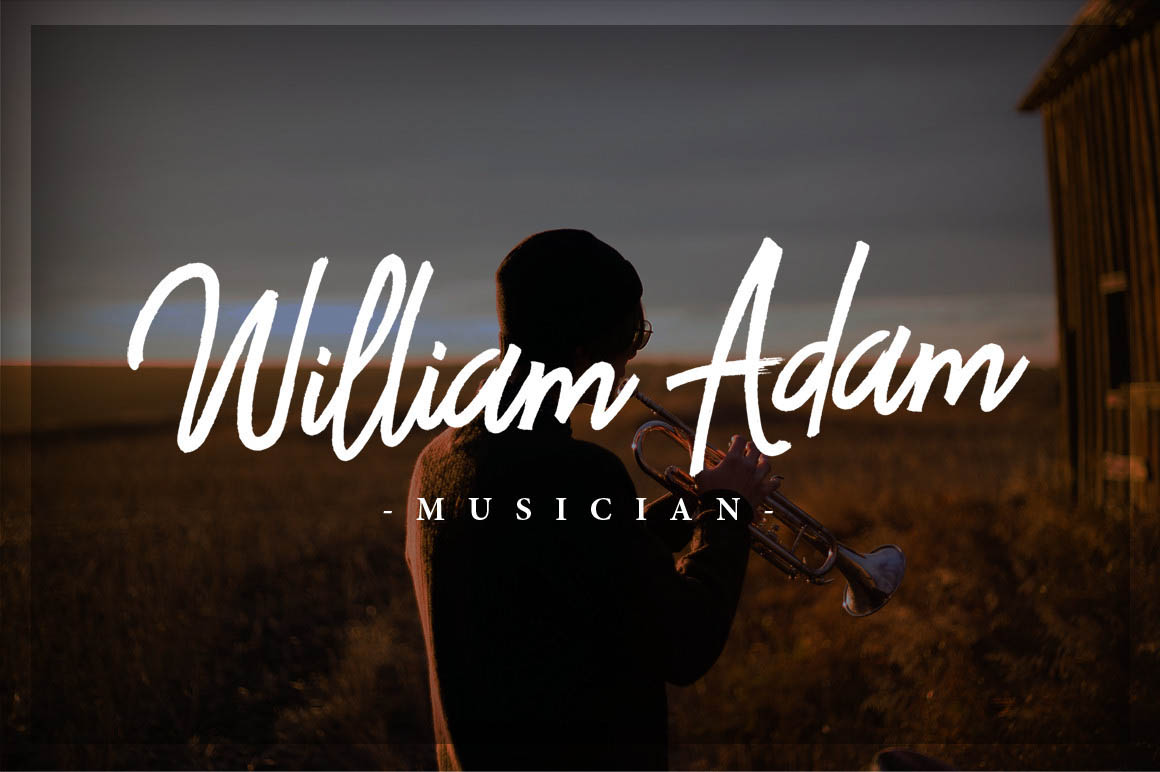
Aveline Script Font
Introducing Aveline Script Font! Aveline Script designed by sizimon, this is a premium font, are sold on creativemarket, but it was great, it is free today for download. Aveline Script is hand written fonts set . Very cool for logos, name tag, handwritten quotes, product packaging, merchandise, social media & greeting cards. And very easy to make design t-shirts and other products. Very save time in making the design of a product. It contains a full set of lower & uppercase letters, a large range of punctuation, numerals, and multilingual support.